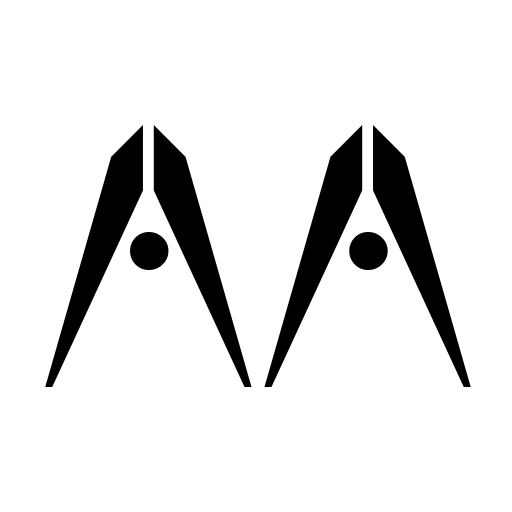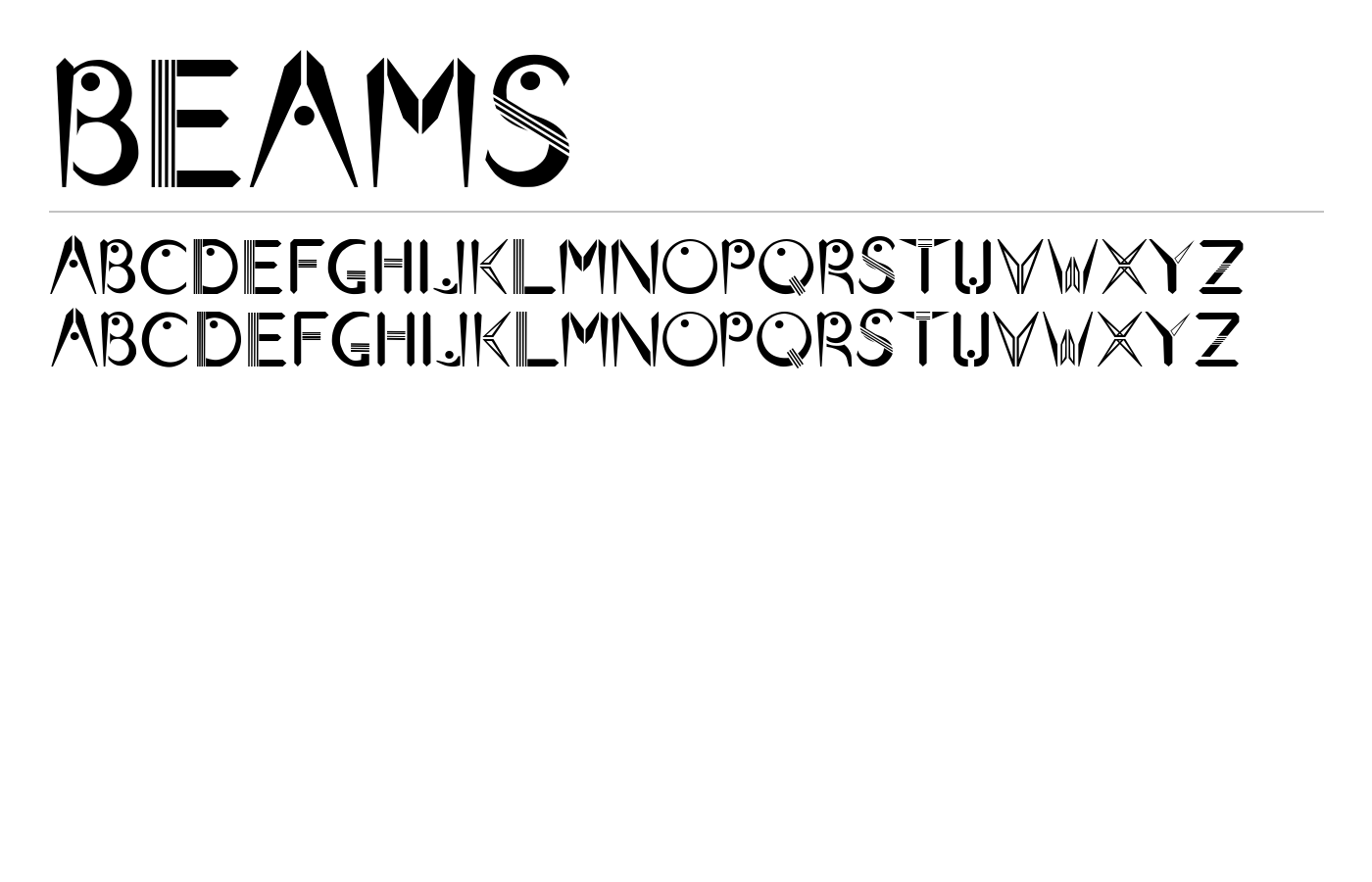
BEAMS is a distinct decorative sans serif font characterized by its geometric, angular shapes and striking use of fine lines and bold solid strokes within each letter. This font radiates a futuristic, modern vibe with a playful edge, making it ideal for eye-catching headlines, logos, and creative branding that seek to stand out with a unique, artistic flair. Its intricate style works best in design projects where a bold statement and originality are desired, rather than long-form text.
BEAMS Font
About BEAMS Font